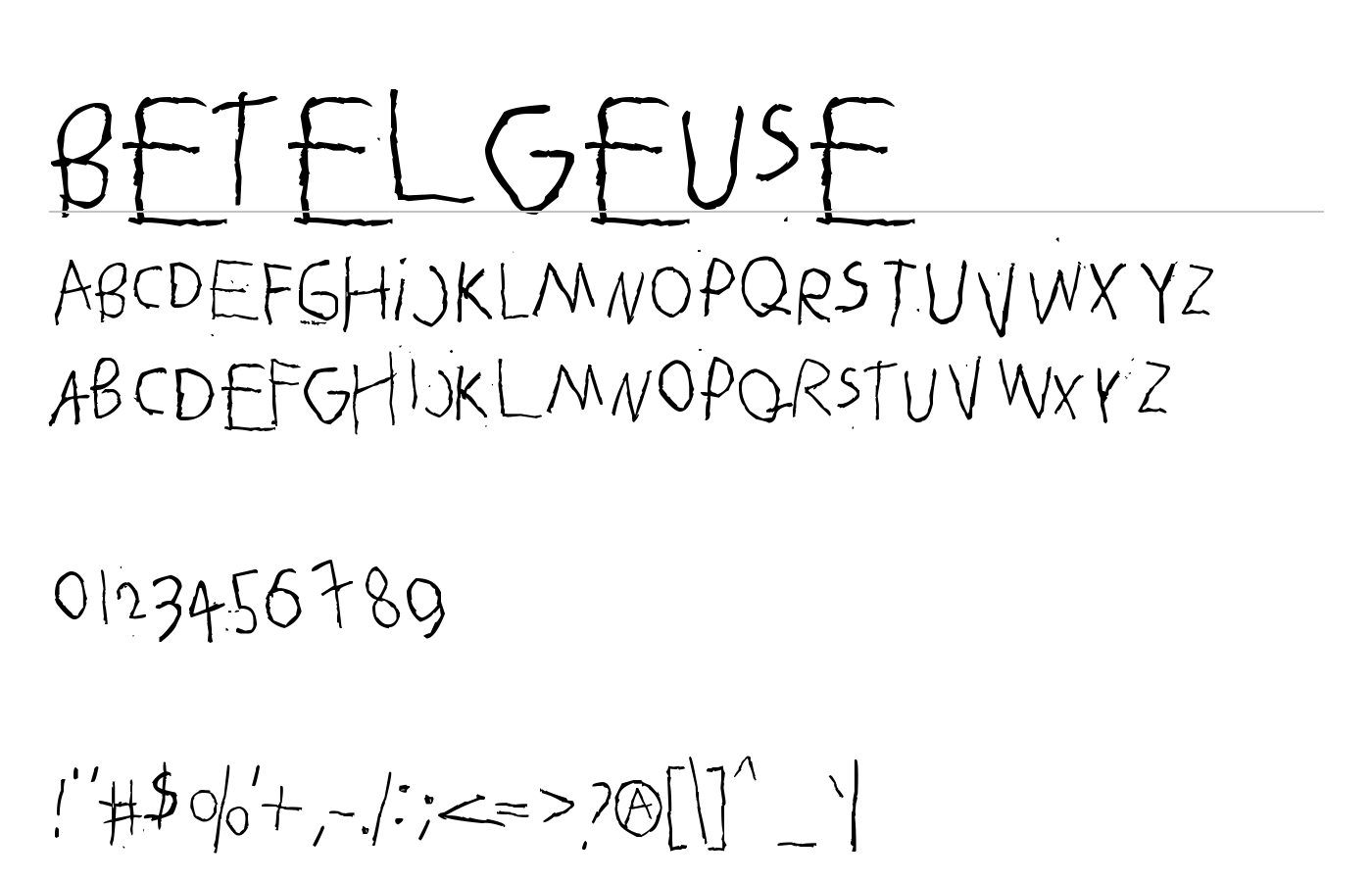
Betelgeuse is a quirky, hand-drawn sans serif font that features uneven, thin strokes with a slightly rough, organic texture, giving it a spontaneous and imperfect charm. Its narrow letterforms and irregular lines create a playful yet eerie feel, making it ideal for creative projects that aim for a mysterious, whimsical, or alternative vibe. This font works well for headlines, posters, and branding that need a distinctive, artistic touch with a handmade aesthetic.
Betelgeuse Font